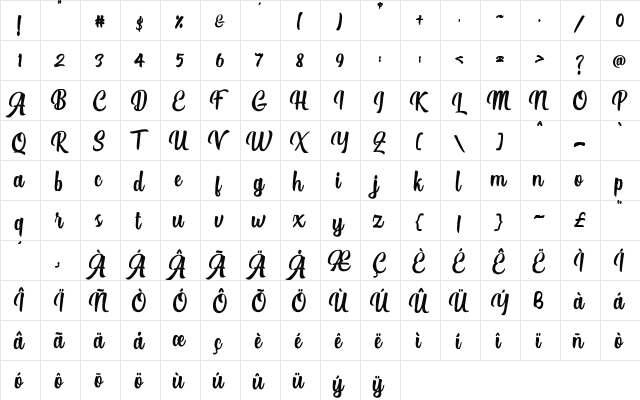
Authentic Script Rough Regular
Design Context for Authentic Script Rough Typeface
Authentic Script Rough trades polish for personality, using distressed and eroded forms to bring grit and attitude to creative work.
A strong fit for alternative music projects, graffiti-adjacent design, and anything that deliberately resists polish.
Pro Tip: Use Authentic Script Rough at larger sizes where the texture and irregularity of each letterform can be clearly seen — it loses its character at small sizes.